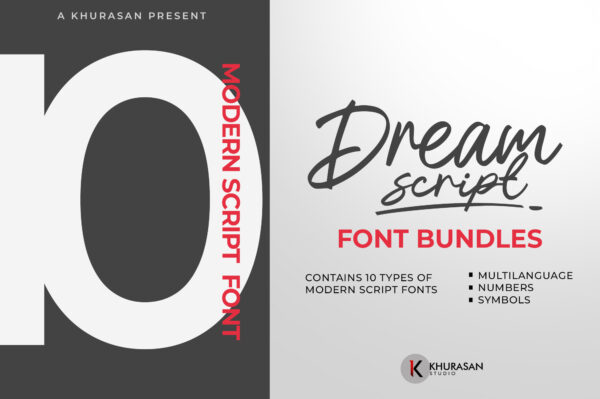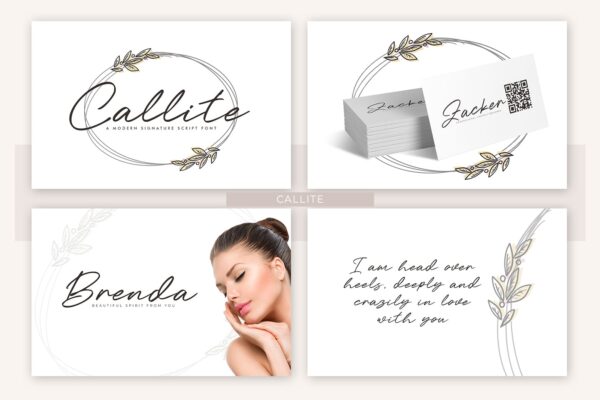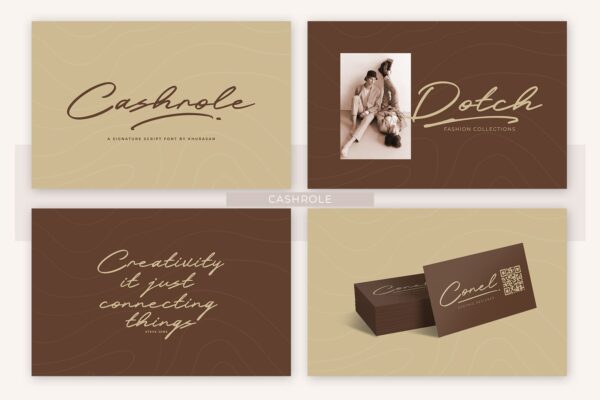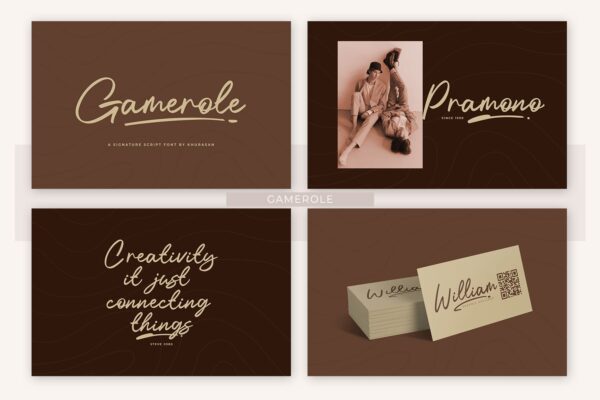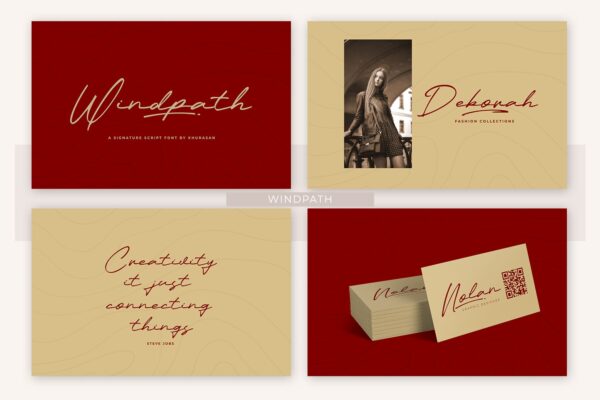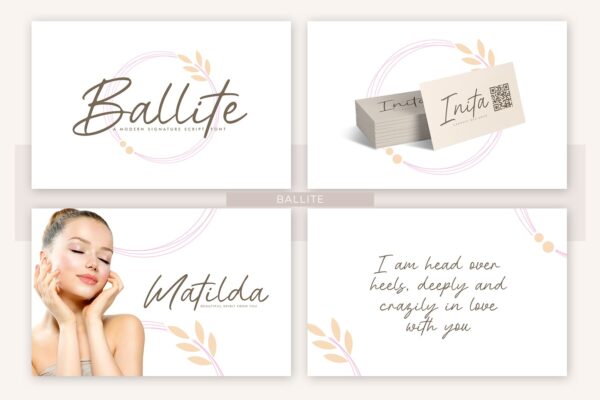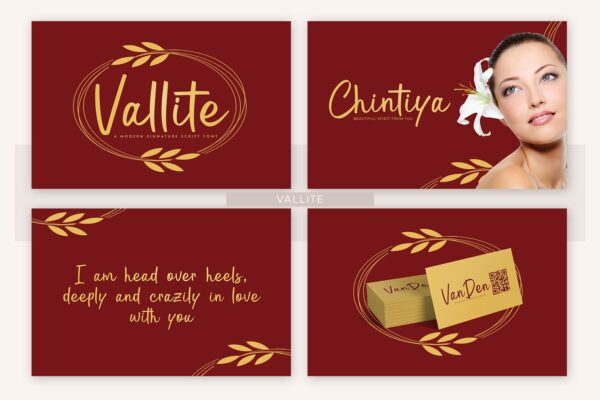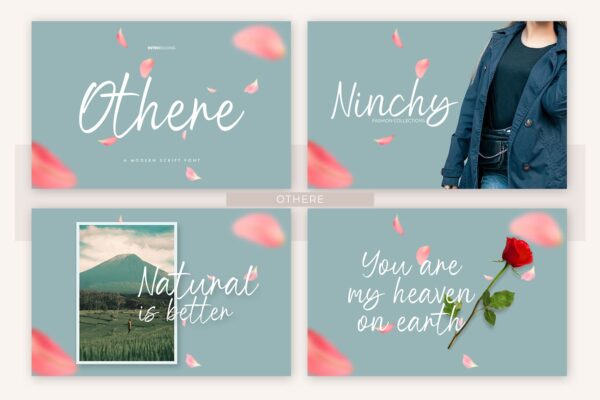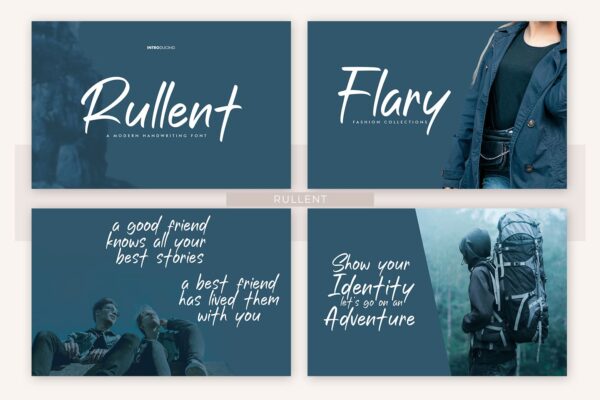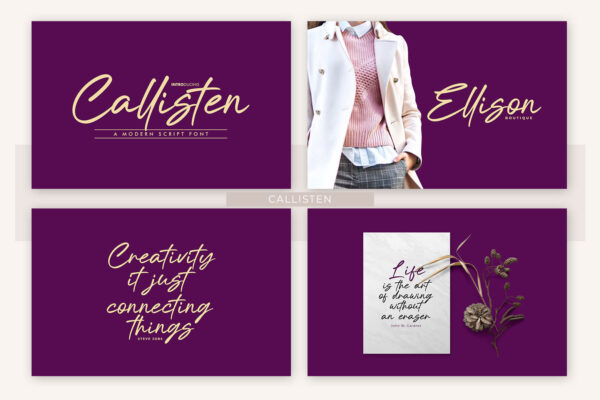
Including some of the best typography with ligatures, multilingual, and more font families.
This bundle includes my handpicked selection of fonts anda perfect for branding, posters, banner, signatures, logos, blog, wedding invitations, greeting card, t-shirts, letterhead, merchandise, signage, lable, news, posters, badges etc.
• Callite
• Cashrole
• Gamerole
• Windpath
• Ballite
• Vallite
• Othere
• Rullent
• Callisten
• Writeline
Dream Script Font Bundles